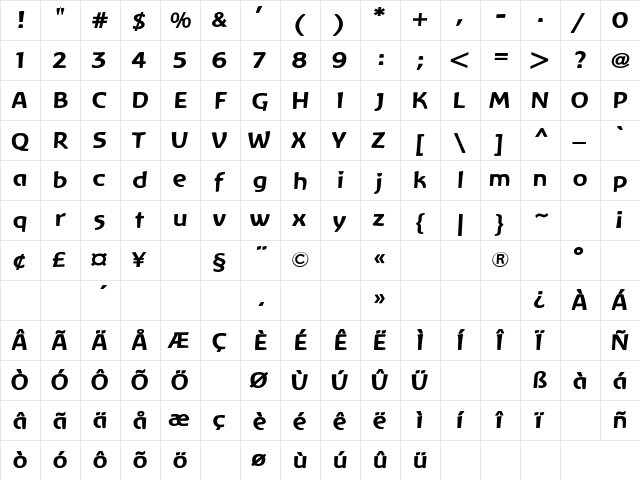
Baar Goetheanis Regular
Design Context for Baar Goetheanis Typeface
Baar Goetheanis offers clean, dependable letterforms without strong stylistic allegiance, making it a practical choice for designers who need flexibility.